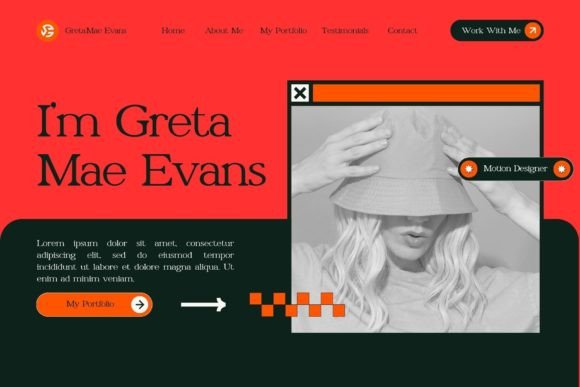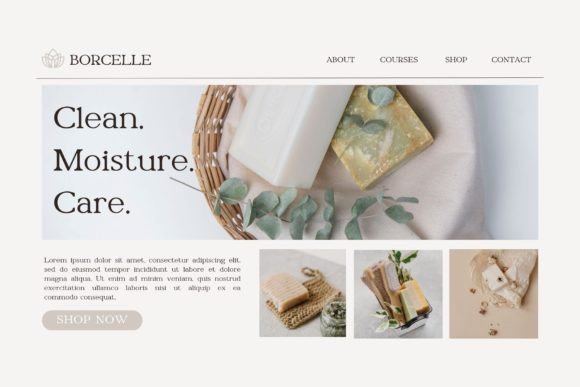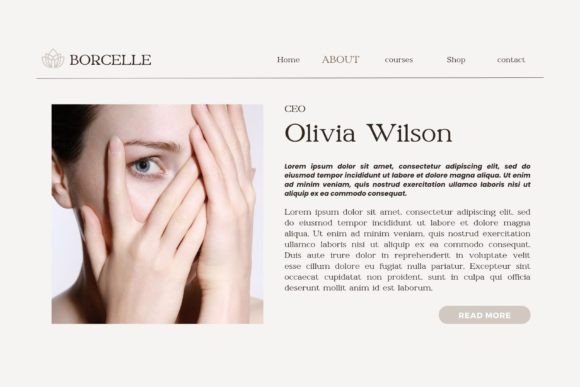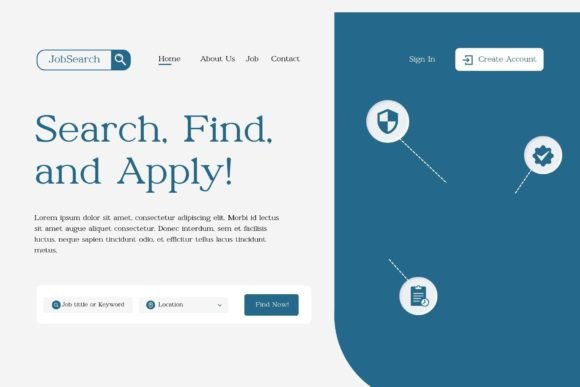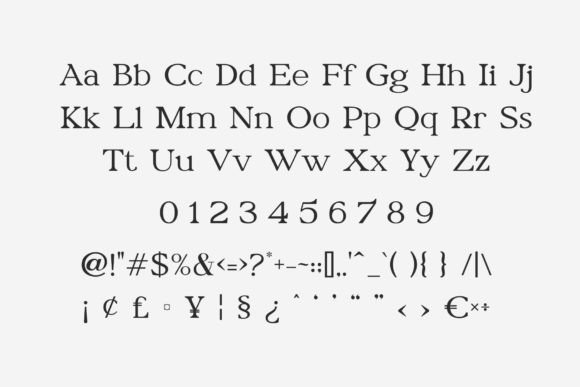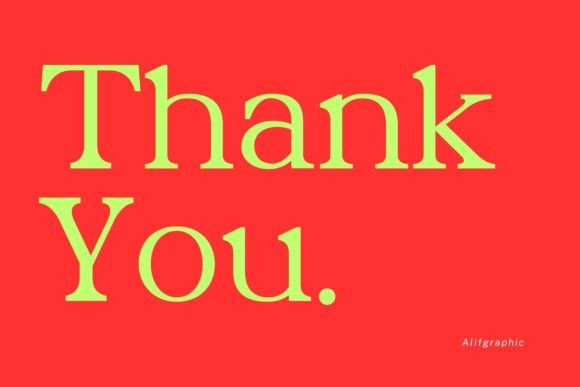
Introducing Canersh Font: Elevate Your Creative Projects with Elegance and Modernity
In the world of design, typography plays a crucial role in conveying messages, expressing creativity, and capturing the essence of a brand. For designers, crafters, and creative enthusiasts, finding the perfect font can be a daunting task. This is where Canersh Font comes into play – an exquisite font series designed to elevate your creative projects and add a touch of sophistication to your designs.
The Allure of Canersh Font
Canersh Font is meticulously crafted to strike the perfect balance between modernity and elegance. Each letter is carefully designed to exude a sense of refinement and precision, making it ideal for projects that demand a high level of typographic excellence. Whether you’re working on a modern design, beauty and fashion project, or an elegant creation, Canersh Font is the perfect choice.
Key Features of Canersh Font
- Precision Design: Our commitment to precision shines through in the creation of each letter, prioritizing immaculate design to guarantee a flawless typographic expression.
- Modern and Elegant: Canersh Font strikes the perfect balance between modernity and elegance, making it suitable for a wide range of design applications.
- Versatile Applications: From web design projects to beauty and fashion designs, Canersh Font is versatile enough to be used in various creative projects.
Ideal Use Cases for Canersh Font
Canersh Font is ideal for a variety of design projects, including:
- Modern Designs: Add a touch of modernity to your designs with Canersh Font’s sleek and contemporary look.
- Beauty and Fashion: Elevate your beauty and fashion projects with Canersh Font’s elegant and sophisticated design.
- Elegant Creations: Create stunning elegant creations with Canersh Font’s precise and refined design.
- Versatile Applications: Use Canersh Font in a variety of design applications, from web design projects to print designs.
- Web Design Projects: Enhance your web design projects with Canersh Font’s clean and modern design, perfect for headers, titles, and more.
Why Choose Canersh Font?
With so many fonts available, why choose Canersh Font? Here are a few reasons:
- Unique Design: Canersh Font boasts a unique design that sets it apart from other fonts.
- High-Quality Typography: Our font is designed to provide high-quality typography, ensuring that your designs look professional and polished.
- Ease of Use: Canersh Font is easy to use and integrate into your design projects.
In conclusion, Canersh Font is an exquisite font series designed to elevate your creative projects. With its precise design, modern elegance, and versatile applications, Canersh Font is the perfect choice for designers, crafters, and creative enthusiasts. Whether you’re working on a modern design, beauty and fashion project, or an elegant creation, Canersh Font is sure to impress. So why wait? Download Canersh Font today and take your designs to the next level!